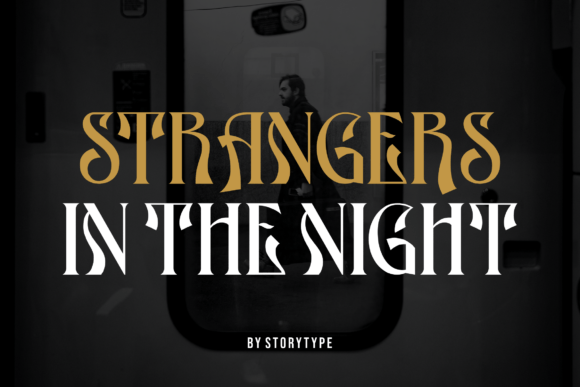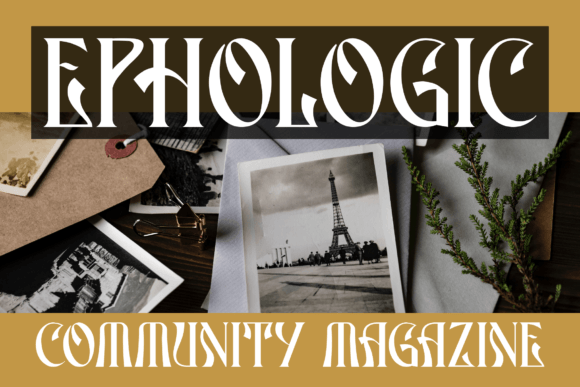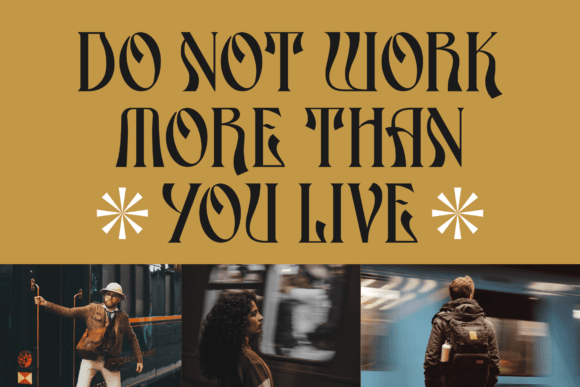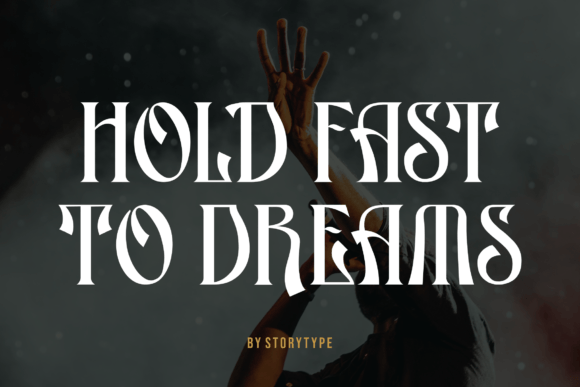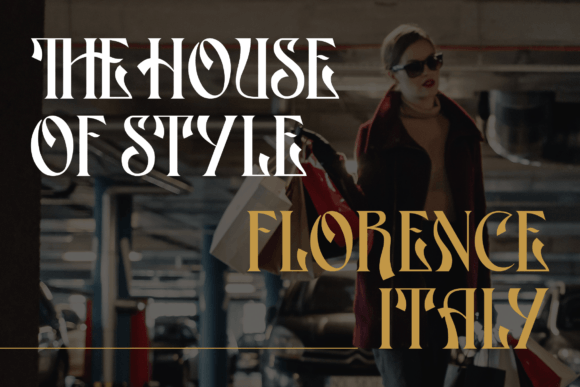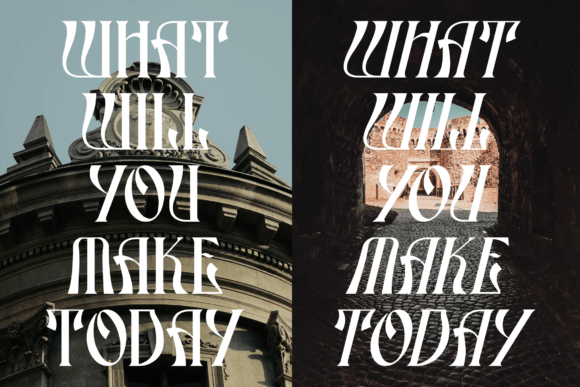
Athear Font: Elevate Your Designs with a Modern and Classic Serif Typeface
In the world of typography, a font can make or break a design. For designers and crafters looking for a typeface that exudes elegance and luxury, look no further than Athear Font. Proudly presented, Athear is a modern and classic serif typeface that boasts a unique style and modern look, perfect for a wide range of design applications.
What is Athear Font?
Athear Font is a thoughtfully crafted serif typeface that blends traditional and contemporary elements to create a distinctive and sophisticated look. Its unique style and modern aesthetic make it an ideal choice for designers seeking to add a touch of elegance and luxury to their work.
Key Features of Athear Font
- Modern and Classic Serif Style: Athear Font features a perfect blend of modern and classic serif elements, making it versatile and suitable for various design projects.
- Unique and Distinctive Look: The typeface’s unique style and modern aesthetic set it apart from other serif fonts, ensuring your designs stand out.
- Elegant and Luxurious Feel: Athear Font is designed to evoke a sense of elegance and luxury, making it perfect for high-end branding, fashion, and editorial designs.
Use Cases for Athear Font
Athear Font’s versatility makes it suitable for a wide range of design applications, including:
- Elegant and Luxury Logos: Create stunning logos for high-end brands, hotels, restaurants, and luxury products.
- Book or Movie Title Design: Add a touch of sophistication to book covers, movie titles, and DVD designs.
- Fashion Brand: Elevate fashion brand identities with a font that exudes style and luxury.
- Magazine and Editorial Design: Use Athear Font to create visually appealing magazine layouts, articles, and editorials.
- Clothes and Apparel: Design stylish and elegant labels, tags, and packaging for clothing and accessories.
- Lettering and Quotes: Create beautiful lettering and quote designs for social media, posters, and prints.
Why Choose Athear Font?
With so many fonts available, why choose Athear Font? Here are a few compelling reasons:
- Unique Style: Athear Font’s distinctive style ensures your designs will stand out from the crowd.
- High-Quality Design: The typeface is meticulously crafted to provide a smooth and elegant reading experience.
- Versatility: Athear Font can be used for a wide range of design applications, making it a valuable addition to your font library.
In conclusion, Athear Font is a modern and classic serif typeface that offers a unique style and modern look, perfect for designers and crafters seeking to elevate their designs. With its elegant and luxurious feel, versatility, and high-quality design, Athear Font is an excellent choice for a wide range of design applications. Whether you’re working on a luxury brand identity, fashion design, or editorial project, Athear Font is sure to impress.